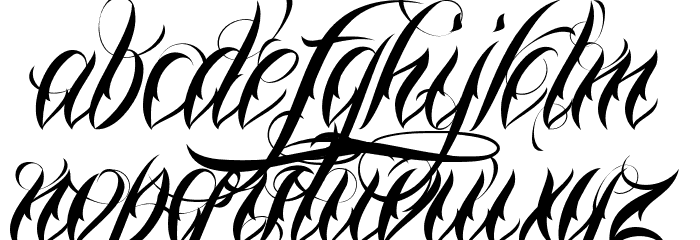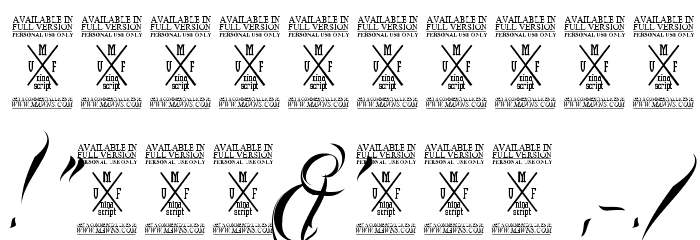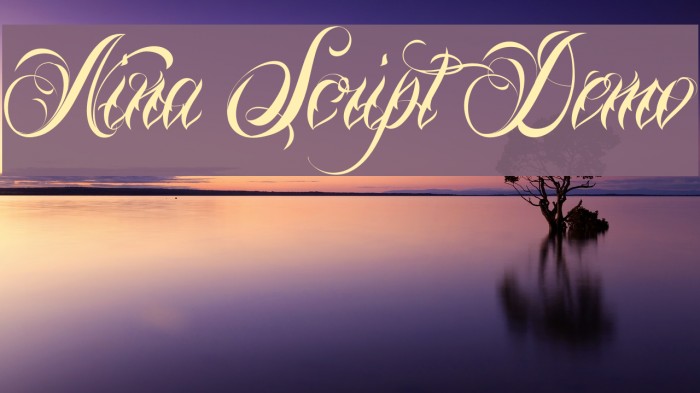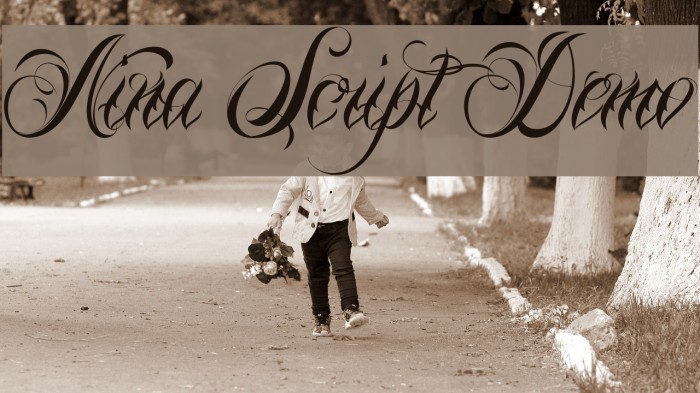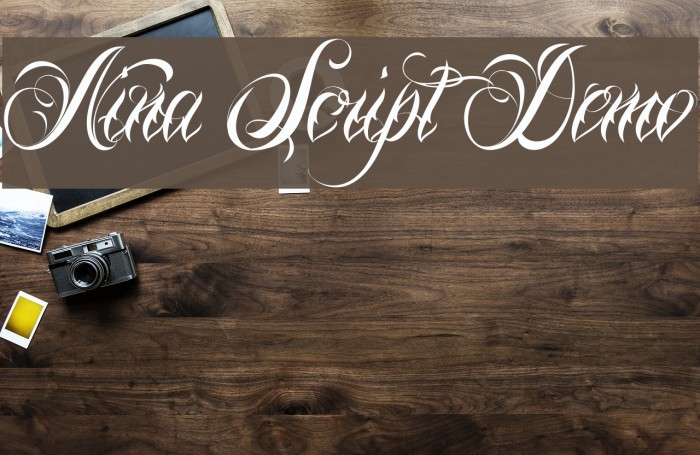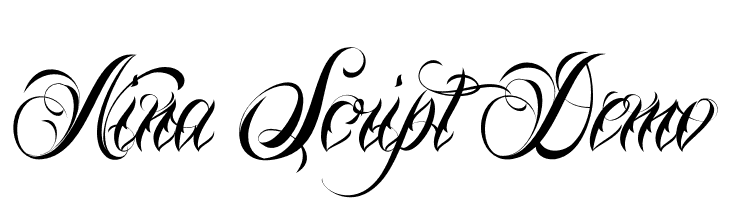
Nina Script Demo Font
This elegant script font features intricate and flowing letterforms with elaborate swashes and flourishes. The uppercase letters are particularly ornate, with extended loops and curves that create a sense of movement and grace. The lowercase letters maintain a consistent style, offering a harmonious blend of readability and decorative appeal. The font's design is reminiscent of classic calligraphy, making it ideal for projects that require a touch of sophistication and artistry. The numerals and special characters are crafted with the same attention to detail, ensuring a cohesive look across all text elements.
An elegant script font with intricate swashes and a calligraphic style.
- Proposed Projects: Ideal for wedding invitations, elegant branding, luxury packaging, and artistic posters.
- Overall Style: Classic
- Use Case: Logos, Invitations, Decorative text